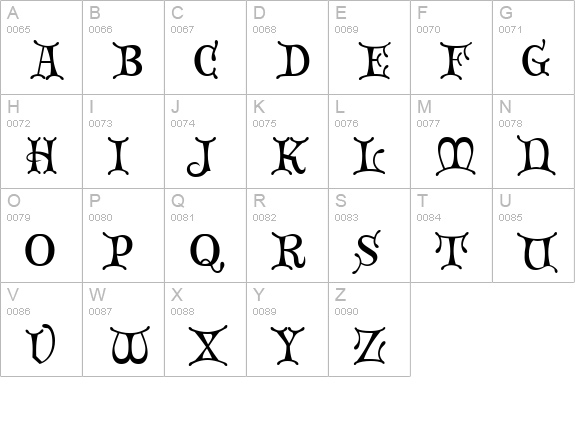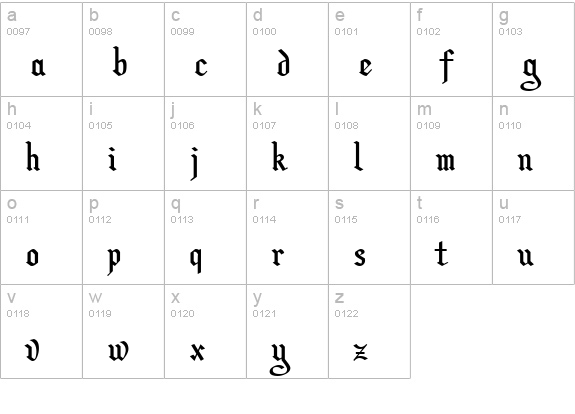
Introducing Christmas Card II font - a whimsical and festive typeface perfect for all your holiday designs! This charming font captures the spirit of Christmas with its playful strokes and elegant curves. Whether you're creating greeting cards, party invitations, or social media graphics, Christmas Card II font will add a touch of magic to your projects. And the best part? Christmas Card II font is absolutely free to download at FontsMarket.com! Bring joy and cheer to your designs this holiday season with this delightful font that is sure to spread Christmas magic wherever it's used. Download your copy today and let the spirit of the season shine through in your creations!